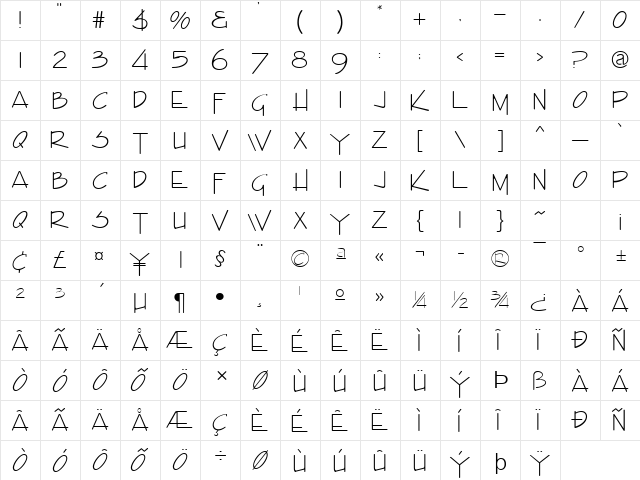
Enview Light Normal
Design Context for Enview Light Typeface
Enview Light offers clean, dependable letterforms without strong stylistic allegiance, making it a practical choice for designers who need flexibility. Its slender proportions lend an understated elegance to any composition.